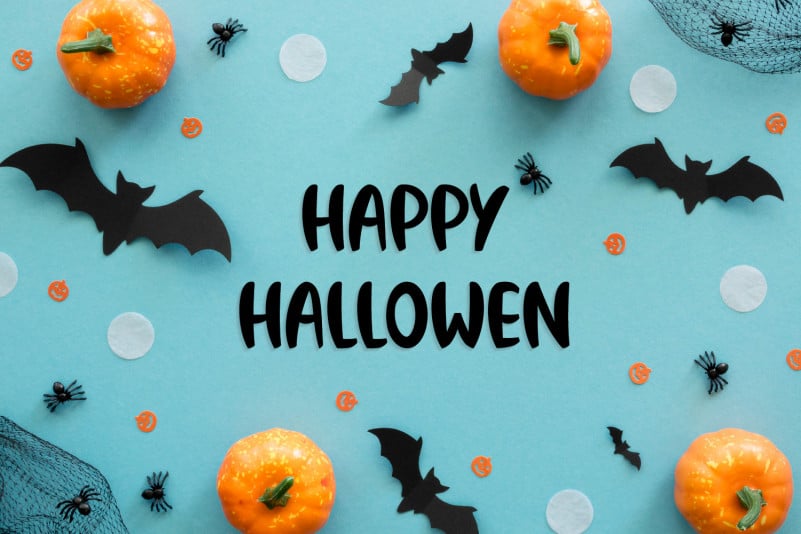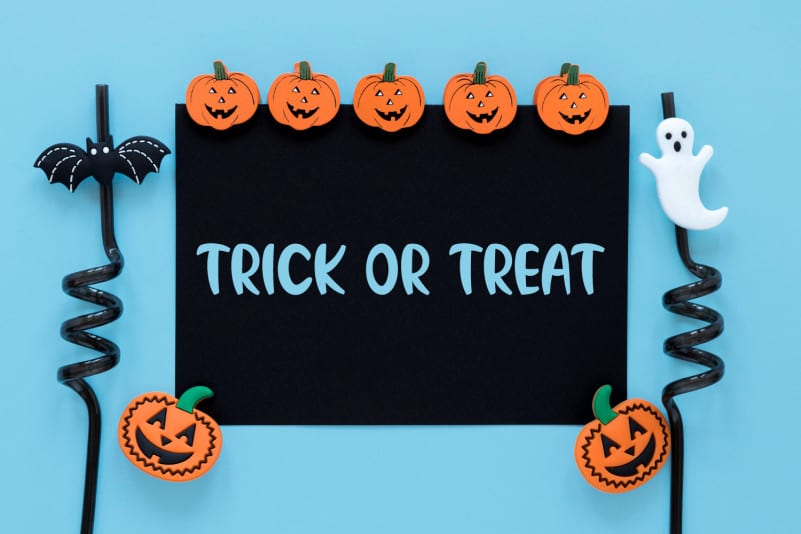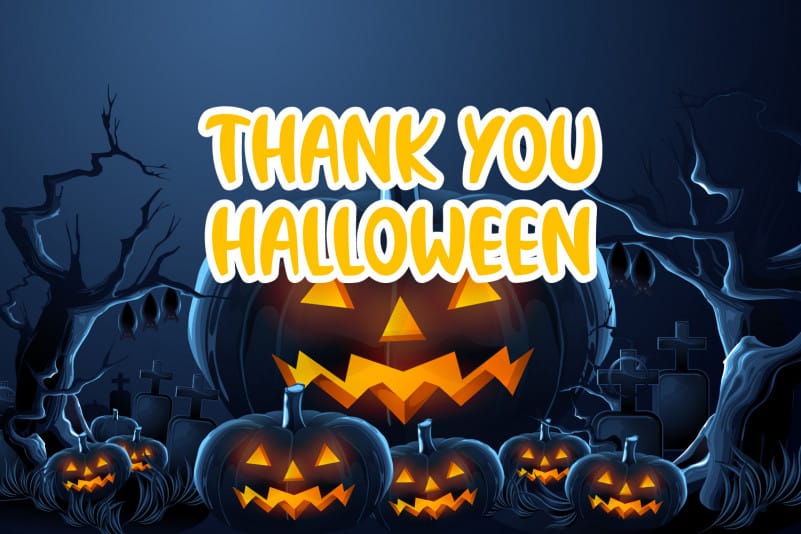
Hallowen Haunted Display Font
Hallowen Haunted Display Font is a simple and neat lettered display font. Add this font to your creative ideas and notice how it will make them stand out!